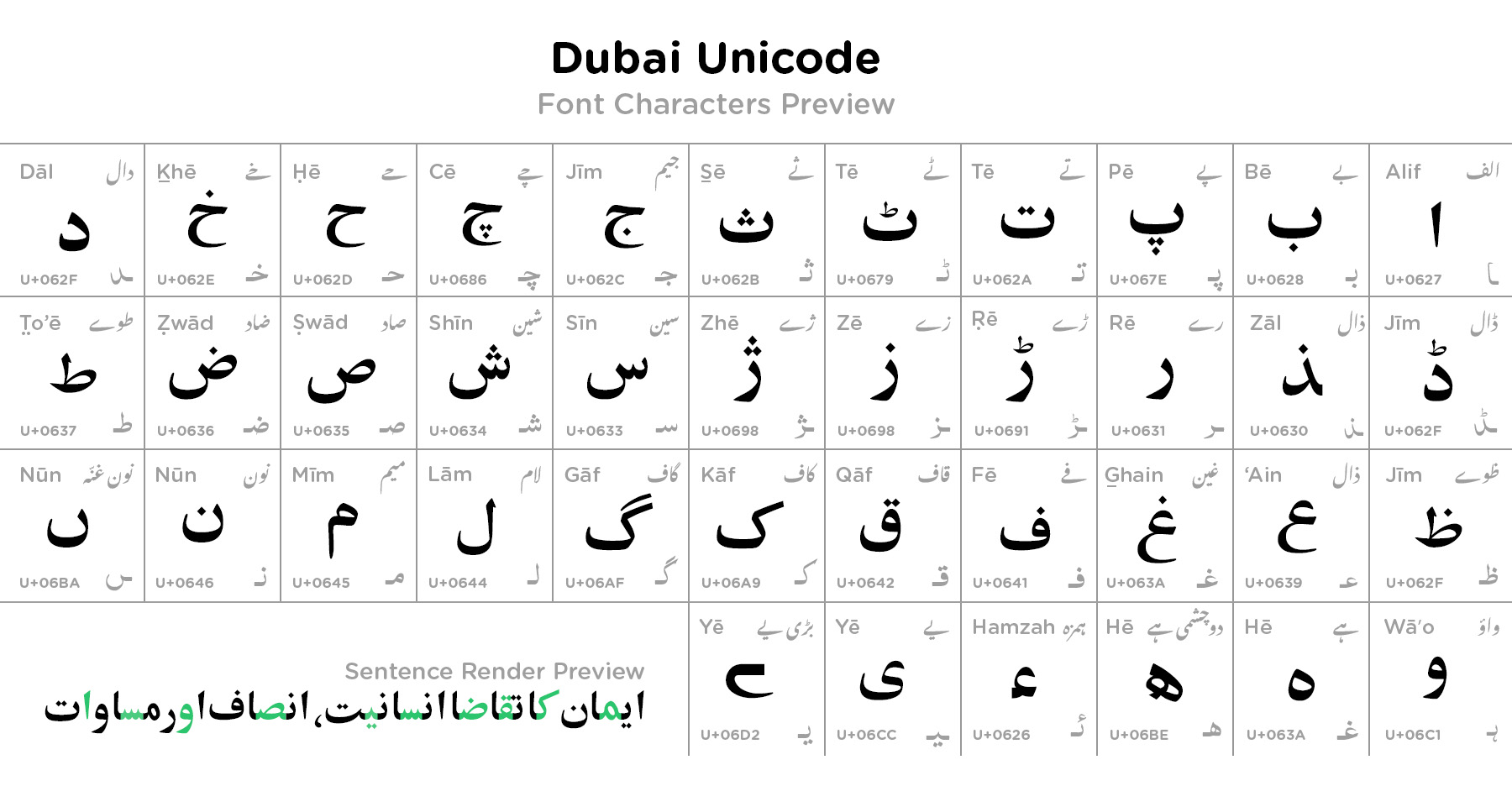
Dubai Unicode
Dubai Unicode was designed by Syed Manzar Hasan Zaidi and developed by Axis Softmedia Pvt. Ltd Mumbai, India, is a bold and thick Urdu/Arabic font released in 2016. Inspired by the traditional Naskh script with elements of Nastaliq, it offers 444 characters and symbols and 497 glyphs, ensuring compatibility with various languages and Unicode blocks. Characterized by its bold and thick letterforms, Dubai Unicode features a plain design with slightly rounded curves and flowing terminals. While its thickness varies within letterforms, it maintains a strong and impactful stroke, enhancing legibility and emphasis.
Ideal for short text blocks requiring immediate attention, It’s bold nature ensures readability even at a glance. Its changing thickness, denser in the middle and thinner towards the edges, adds visual interest without compromising clarity. The font is professional and straightforward, with a focus on clear letter shapes, well-defined spacing, and clean lines. It is well-suited for headings in books, magazines, and other literary projects where clarity and impact are top priorities.